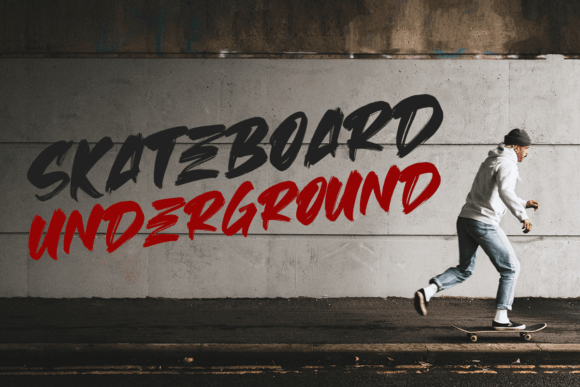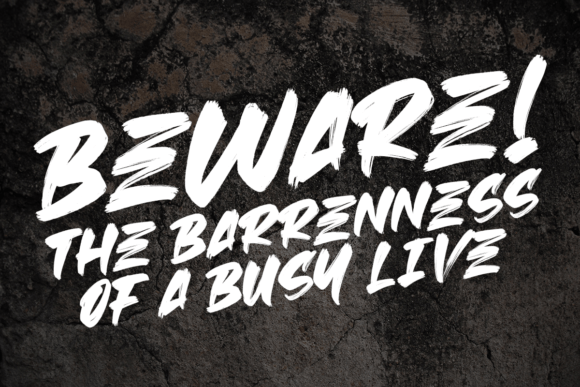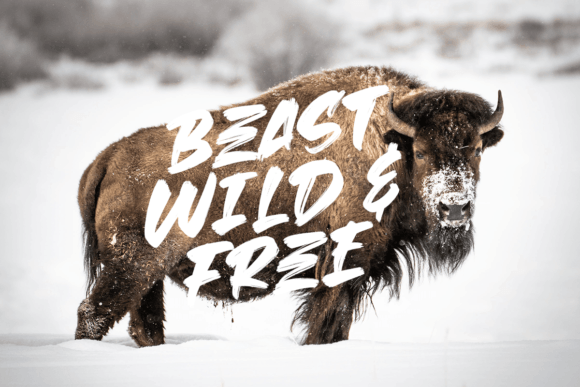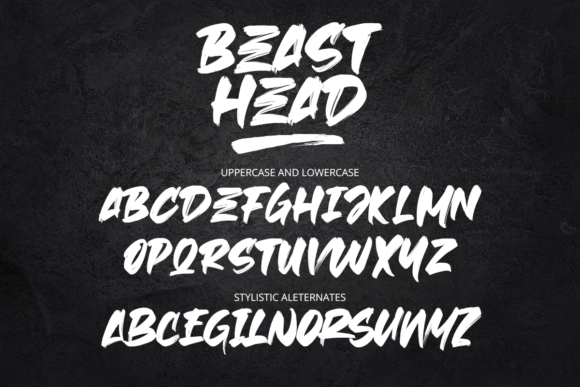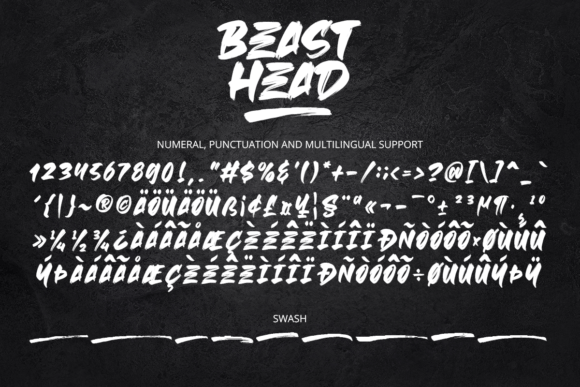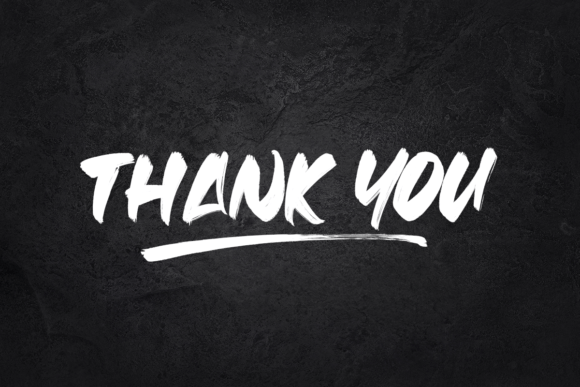
Unleash Your Creativity with Beast Head Font: A Simple yet Bold Brush Font
Are you a designer or crafter looking for a font that can add a touch of fun and romance to your designs? Look no further than the Beast Head Font, a simple and bold brush font that’s perfect for any design idea. In this article, we’ll explore the features and benefits of Beast Head Font, and show you how to make the most of this versatile font.
What is Beast Head Font?
Beast Head Font is a modern brush font that’s designed to be both simple and bold. Its unique and playful style makes it perfect for a wide range of design projects, from romantic and whimsical designs to bold and edgy ones. Whether you’re creating a logo, a poster, or a digital graphic, Beast Head Font is sure to make your design stand out.
Key Features of Beast Head Font
- Simple and Bold Design: Beast Head Font features a simple yet bold design that’s perfect for making a statement.
- PUA Encoded: This font is PUA encoded, which means you can access all of the cute glyphs and swashes with ease.
- Fun and Romantic: Beast Head Font is perfect for creating fun and romantic designs that will capture your audience’s attention.
- Versatile: This font can be used with other fonts to create unique and awesome designs.
Benefits of Using Beast Head Font
So why should you choose Beast Head Font for your design projects? Here are just a few benefits of using this amazing font:
- High-Quality Design: This font features a high-quality design that’s perfect for professional-looking designs.
- Unique Style: Beast Head Font has a unique and playful style that’s sure to make your designs stand out.
- Time-Saving: With Beast Head Font, you can create stunning designs in no time, saving you time and effort.
How to Use Beast Head Font
Using Beast Head Font is easy and straightforward. Here are a few tips to get you started:
- Pair it with Other Fonts: Beast Head Font can be paired with other fonts to create unique and interesting designs.
- Experiment with Glyphs and Swashes: With PUA encoding, you can access all of the cute glyphs and swashes to add a personal touch to your designs.
- Use it for a Variety of Projects: Beast Head Font is perfect for a wide range of design projects, from logos and posters to digital graphics and more.
Here are a few tips and tricks for designers and crafters looking to make the most of Beast Head Font:
- Play with Font Sizes: Experiment with different font sizes to create visual interest and hierarchy in your designs.
- Add Texture and Patterns: Add texture and patterns to your designs to give them a more organic and handmade feel.
- Use it for Titles and Headings: Beast Head Font is perfect for titles and headings, adding a touch of fun and personality to your designs.